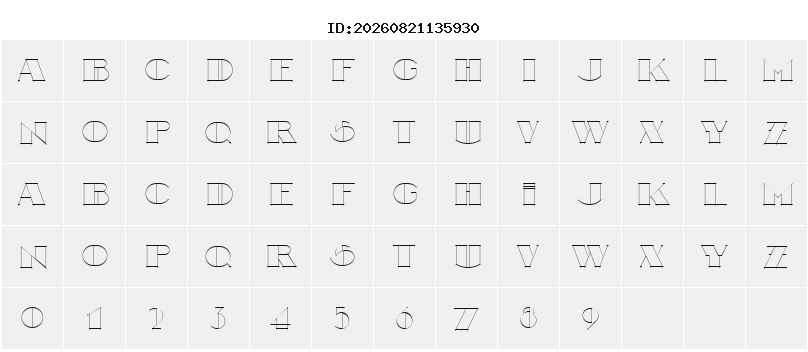
SearsuckerOutline Preview
• Font Name: SearsuckerOutline
• Font ID: Macromedia Fontographer 4.1 SearsuckerOutline
• Full Font Name: SearsuckerOutline
• Version: Macromedia Fontographer 4.1 5/16/02
• PostScript Name: SearsuckerOutline
• Character Count: 85
About SearsuckerOutline.ttf
SearsuckerOutline.ttf is a modern, elegant sans-serif font designed for ultimate readability and visual harmony. Perfect for branding, headlines, web design, and print materials.